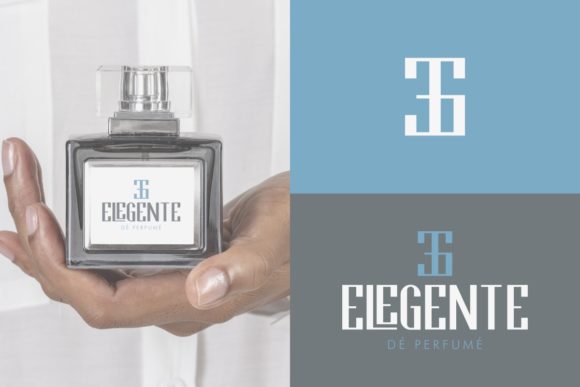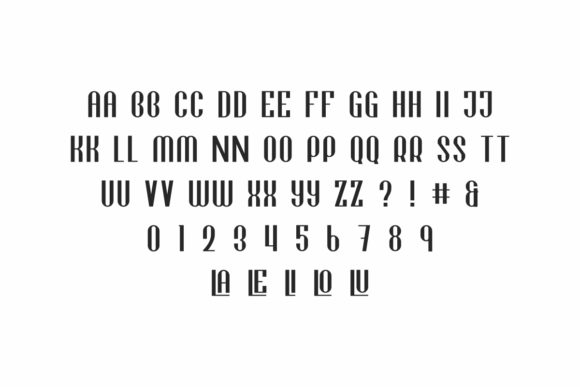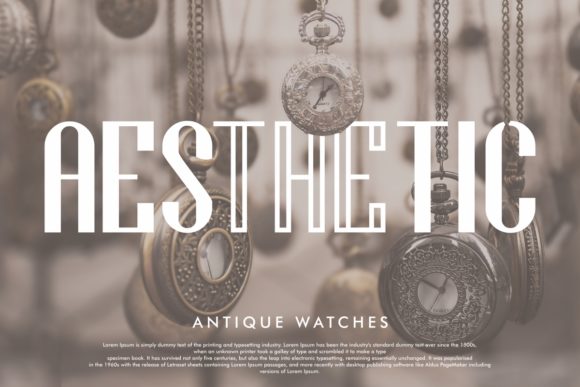
Introduction to Climbup Font
Climbup is a modern and minimalist display font.
Masterfully designed to become a true favorite, this font has the potential to bring each of your creative ideas to the highest level .
Climbup Font offers exceptional quality and versatility, making it a valuable addition to your design toolkit. Whether you’re creating for personal projects or commercial use, Climbup Font delivers professional results.